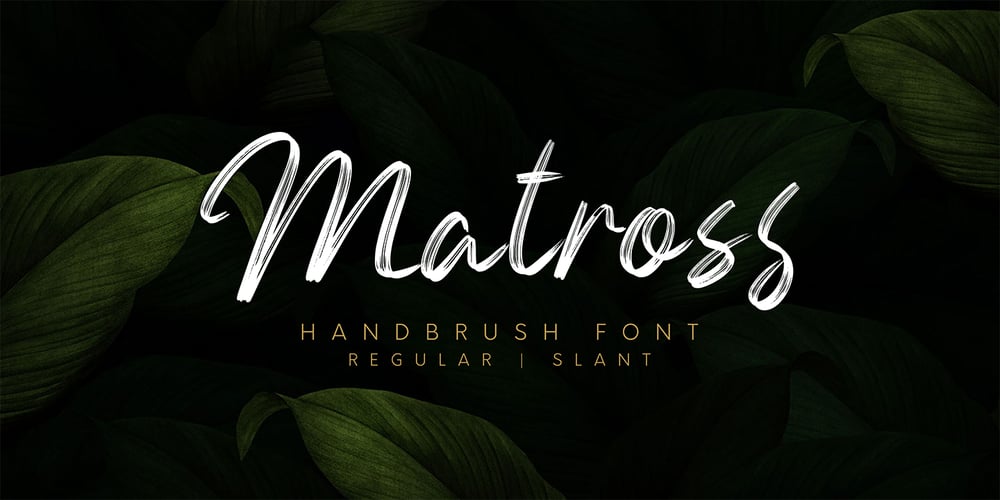
Matross Font Family was designed by Ibnu Utomo and published by Omotu. Matross contains 2 styles and family package options. DETAILSMatross! A handbrush script font with 2 styles, regular and slant. Matross font is suitable for branding, logotype, apparel, T-shirt, Hoodie, product packaging, quotes, flyer, poster, advertising, etc.Whats Include?1. Uppercase and lowercase characters 2. Multilingual support.3. Numerals, punctuations, end titling, and ligarures4. Accessible in the Adobe Illustrator Glyphs panel, or under Stylistic Alternates in the Adobe Photoshop OpenType menu, Adobe InDesign, Corel Draw, even work on Microsoft Word. Please message me if you’re unsure of any language support.Thanks for looking, and I hope you enjoy it! Please don’t hesitate to drop me a message if you have any issues or queries.Omotu Studio